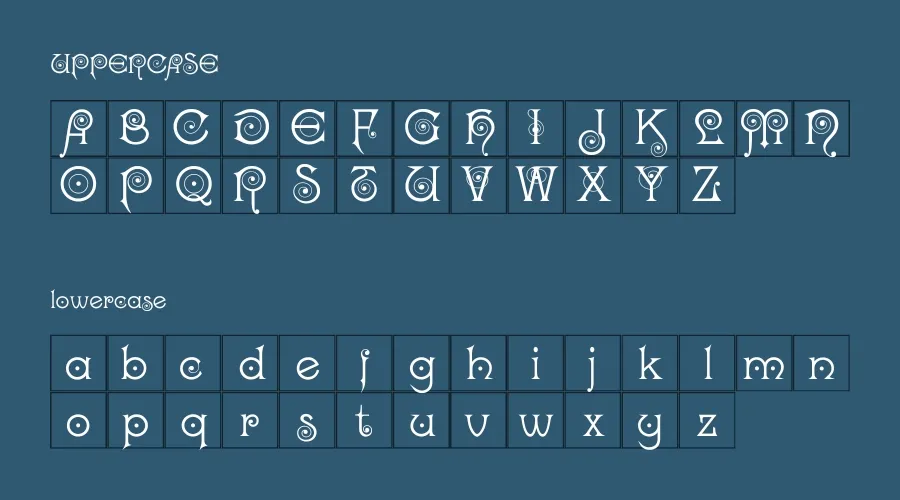
Kismet Font
About Kismet Font
Kismet Font is designed by John F. Cumming the unusual appearance of this font design appeals to consumers in general as well as to gaming professionals. With the assistance of the online font tool generator, anyone can create such font design artistically.
The font is frequently used mostly for branding and advertisement initiatives. Video game players as well as other people who value its distinctive appearance are also fans. You can pair it with the combination of cooper black att font.
Display designs and bold corners can be created with this stunning piece. Text designs can look more stylish with this typeface. It comes in a range of styles, making it suitable for a variety of designs. Designers can create text graphics and name designs by using them. You check out the mama round font for pairing.
For usage in programming, transcriptions, word processing, worksheets, conferences, etc. The font type is ideal. Any application that calls for a taken-to-the-extreme typeface would benefit greatly from using the typeface.
Is Kismet a great font?
This typeface is a perfect typeface for features for your websites. In expansion, it is right for any project such as advertisements, site layouts, social media posts, brands, and more.